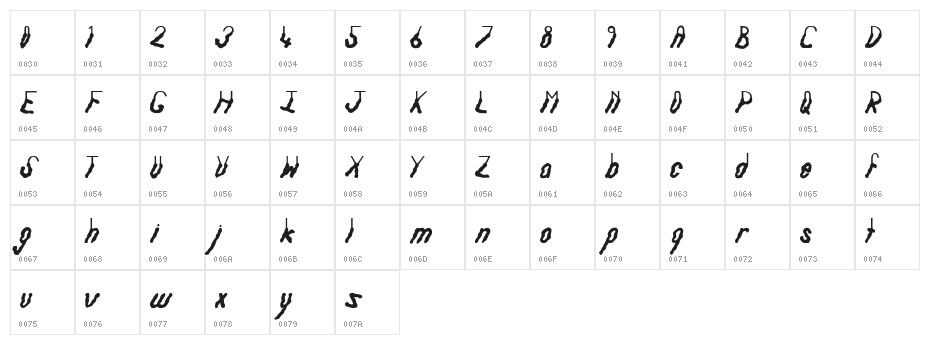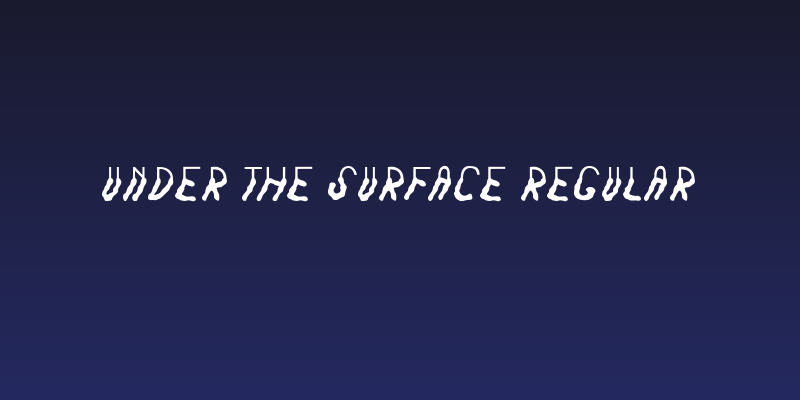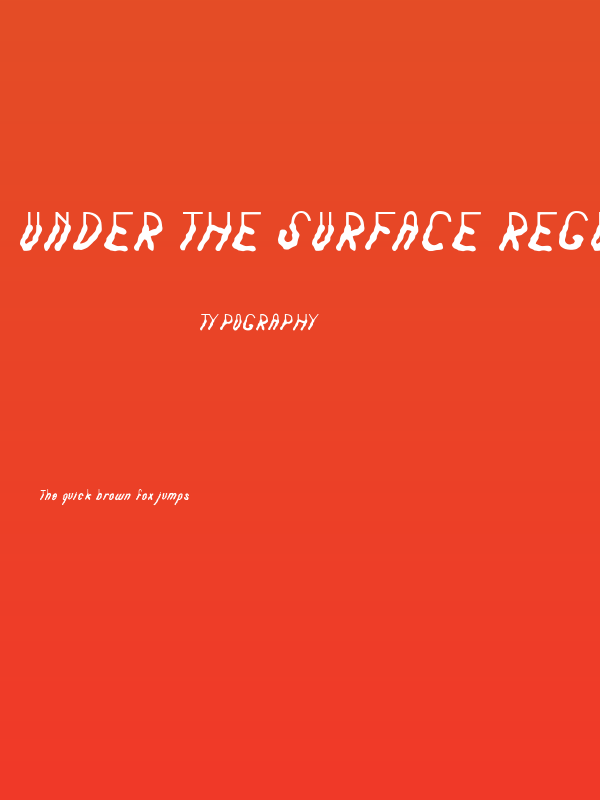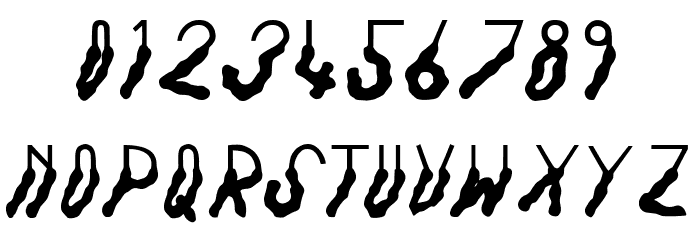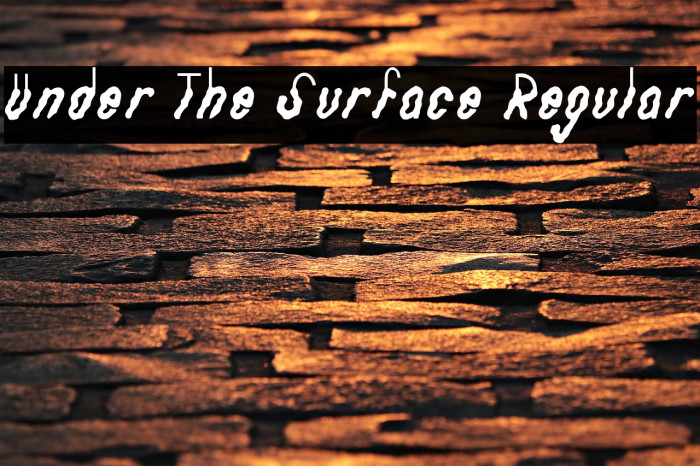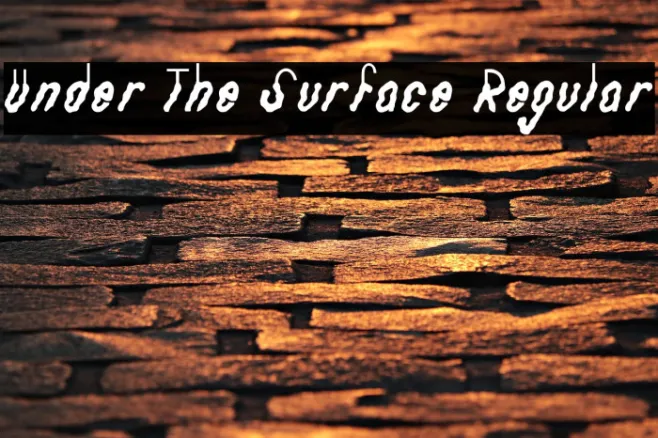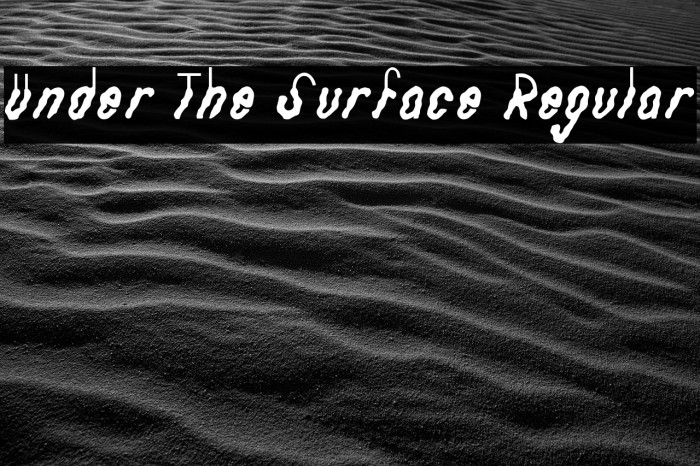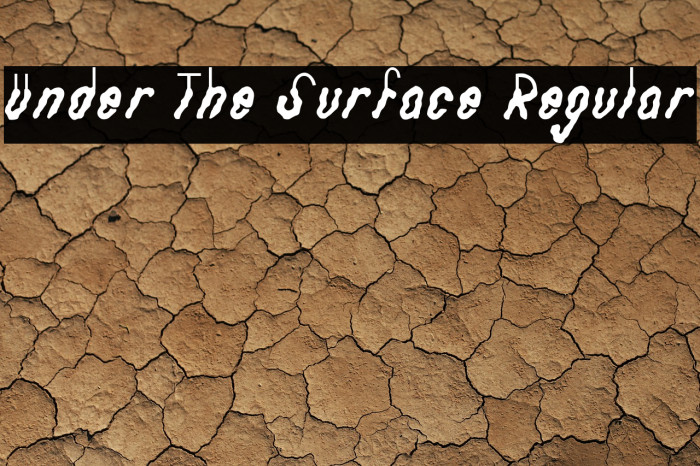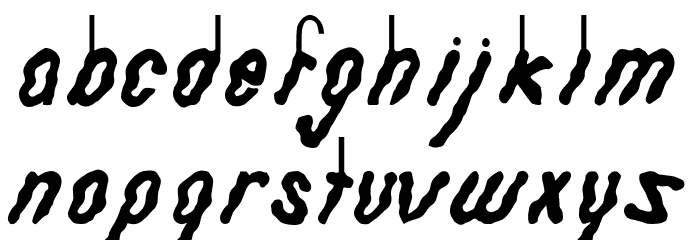
Under The Surface Regular Font
Under The Surface Regular Description
This font features a unique, organic design with a hand-drawn appearance. The characters have an irregular, wavy outline that gives them a fluid and dynamic look. The uppercase and lowercase letters maintain a consistent style, with a playful and artistic flair. The numbers and special characters follow the same aesthetic, ensuring a cohesive look across all elements. The font's distinctive style makes it stand out, offering a creative and unconventional option for various design projects.
| Overall Style | Artistic, Creative |
| Use Case | Headlines, Logos, Artistic projects |
| Proposed Projects | Ideal for artistic projects, creative branding, posters, and unique invitations. |